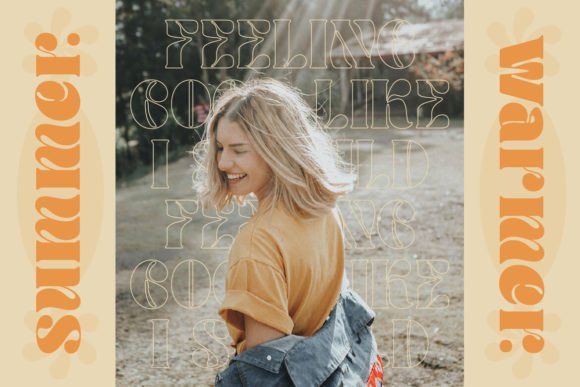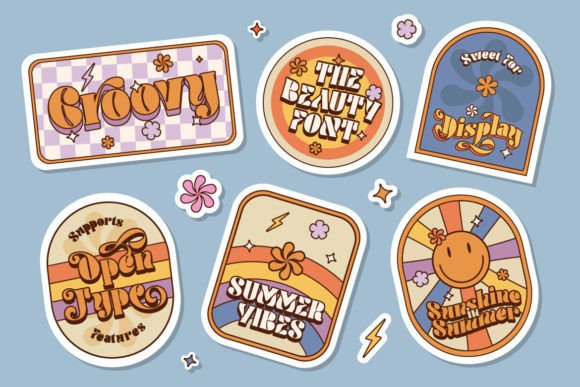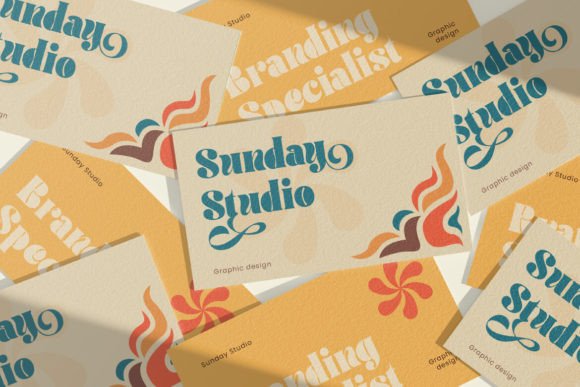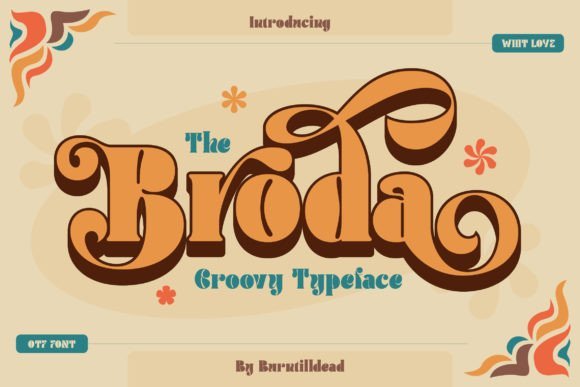
Introduction to Broda Font
Let’s groove back to the funky beats of the past with Broda retro typeface.
Its thick curves and playful strokes add a groovy and timeless classic touch yet aesthetic to any project design, taking you on a nostalgic trip to the swinging 60s and 70s Get ready to unleash your inner hippie and spread some retro vibes in modern era.
Key Features of Broda Font
Why Choose Broda Font?
Broda Font offers exceptional quality and versatility, making it a valuable addition to your design toolkit. Whether you’re creating for personal projects or commercial use, Broda Font delivers professional results.